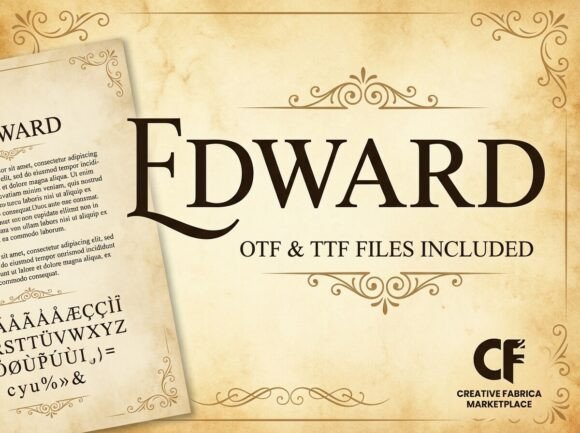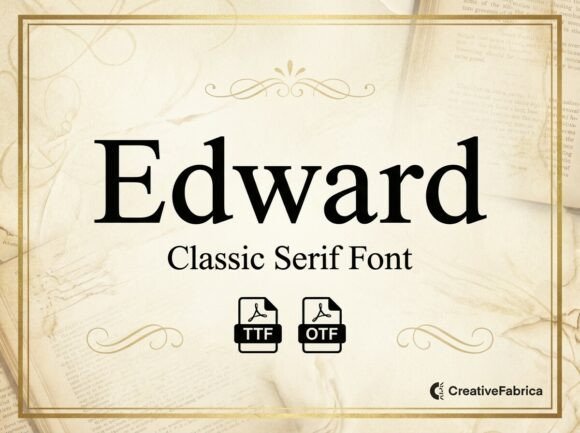
Introducing Edward Font: The Ultimate Decorative Display Font
Are you tired of using the same old fonts in your designs? Do you want to create something that stands out from the crowd and captures the attention of your audience? Look no further than Edward Font, a stunning decorative display font that’s designed to be the center of attention. With its unique artistic elements and strong visual personality, this font is perfect for creators who want to break away from the ordinary and make a statement.
What Makes Edward Font So Special?
Edward Font is a masterpiece of typography, featuring intricate details and creative letterforms that are sure to impress. This font is perfect for high-impact designs where the typography needs to do the talking. Whether you’re designing a modern poster, a unique brand identity, or eye-catching social media content, Edward Font adds an instant “wow” factor to any project. Its versatility makes it suitable for a wide range of applications, from bold headlines and artistic logos to creative packaging and more.
As a designer or crafter, you know how important it is to have a font that can help you stand out from the competition. Edward Font is the perfect solution for anyone looking to create unique and visually stunning designs. With its professional and polished finish, this font is ideal for:
- Poster Design: Create headlines that people can’t look away from. With Edward Font, you can create eye-catching posters that grab attention and leave a lasting impression.
- Branding & Logos: Build a unique identity for creative businesses. This font is perfect for creating distinctive logos and brand identities that reflect your business’s personality and style.
- Apparel & Merch: Perfect for T-shirts, hoodies, and tote bag designs. Edward Font is a great choice for designing apparel and merchandise that stands out from the crowd.
- Social Media: Make your quotes and announcements stand out in the feed. With this font, you can create engaging social media content that gets noticed and shared.
- Packaging: Give your products a premium feel with Edward Font. This font is perfect for creating eye-catching packaging that reflects your brand’s personality and style.
Key Features of Edward Font
So, what makes Edward Font so special? Here are some of its key features:
- Unique Artistic Elements: This font features unique artistic elements that set it apart from other fonts.
- Strong Visual Personality: Edward Font has a strong visual personality that makes it perfect for high-impact designs.
- Intricate Details: This font features intricate details that add an extra layer of sophistication to your designs.
- Creative Letterforms: Edward Font’s creative letterforms make it perfect for designs where typography needs to do the talking.
- Versatile: This font is versatile enough for a wide range of applications, from bold headlines to creative packaging.
Why Choose Edward Font?
So, why choose Edward Font over other fonts? Here are just a few reasons:
- Stand Out from the Crowd: With Edward Font, you can create designs that stand out from the crowd and capture the attention of your audience.
- Professional and Polished Finish: This font has a professional and polished finish that reflects well on your brand.
- High-Quality: This font is of high quality, making it perfect for professional designs.
In conclusion, Edward Font is a stunning decorative display font that’s perfect for creators who want to break away from the ordinary and make a statement. With its unique artistic elements, strong visual personality, and intricate details, this font is ideal for high-impact designs where typography needs to do the talking. Whether you’re designing a modern poster, a unique brand identity, or eye-catching social media content, Edward Font adds an instant “wow” factor to any project. So why wait? Try Edward Font today and take your designs to the next level!